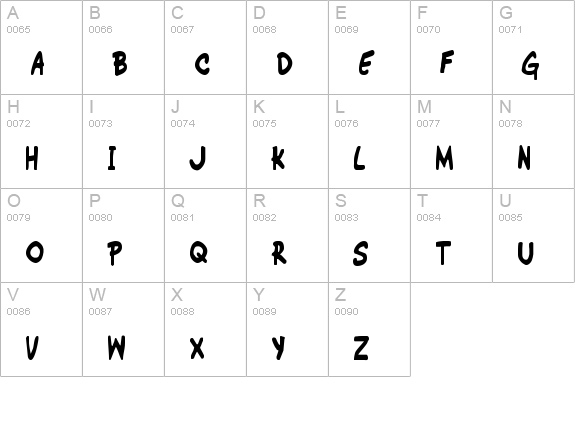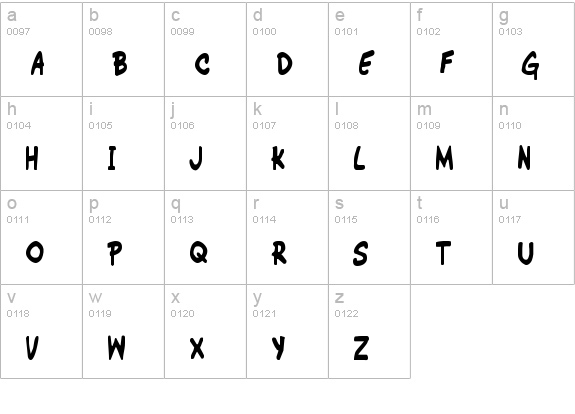
Wimp-Out Condensed Font Details
Wimp-Out Condensed is a distinctive, condensed-width variant in the Wimp typeface family \xE2\x80\x94 well suited to design and typography projects.